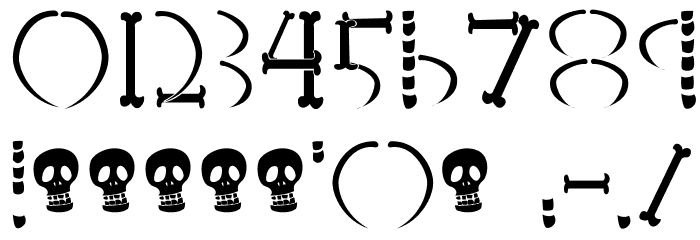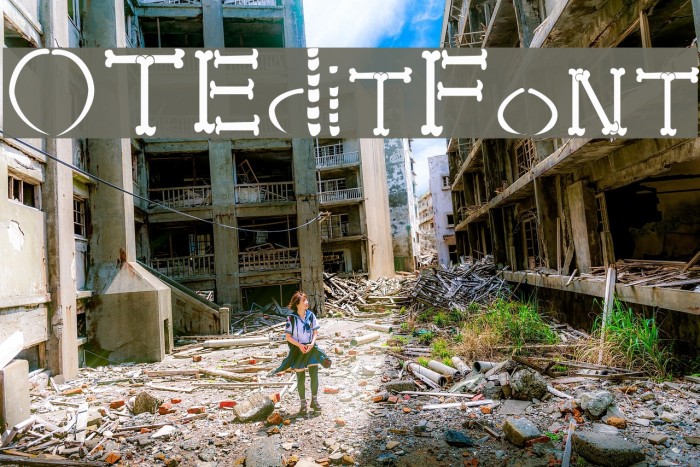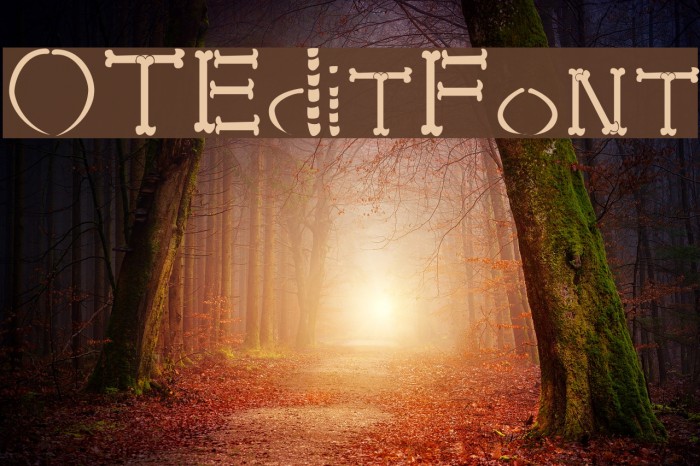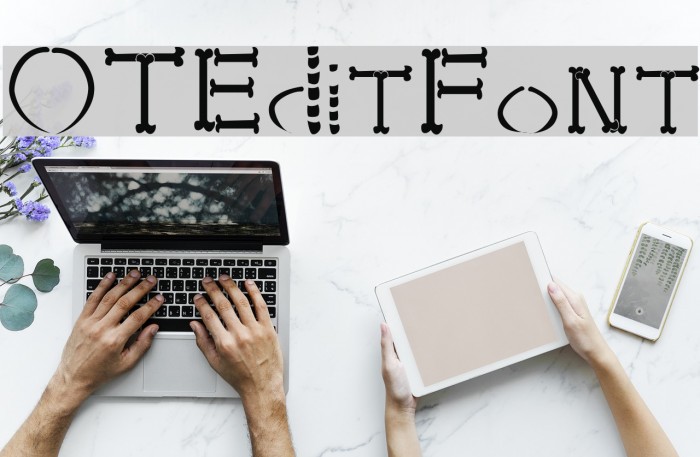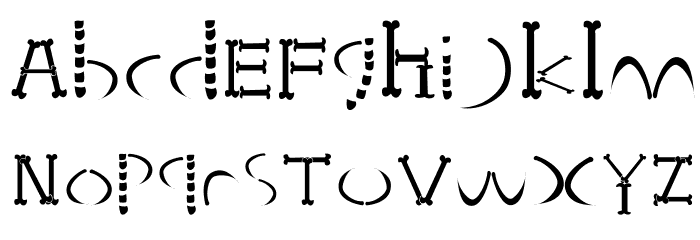
OTEditFont Font
OTEditFont Description
This font features a playful and spooky design, reminiscent of bones or skeletal structures. Each character is crafted with a unique combination of curves and straight lines, giving it a distinctive and eerie appearance. The uppercase and lowercase letters maintain a consistent theme, with elements that resemble bones or vertebrae. The numbers and special characters follow the same skeletal motif, adding to the overall cohesive look. This font is perfect for Halloween-themed projects or any design that requires a touch of the macabre.
A spooky, bone-themed decorative font ideal for Halloween designs from Uncategorized fonts.
- Proposed Projects: Ideal for Halloween invitations, horror movie posters, themed party decorations, and spooky merchandise designs.